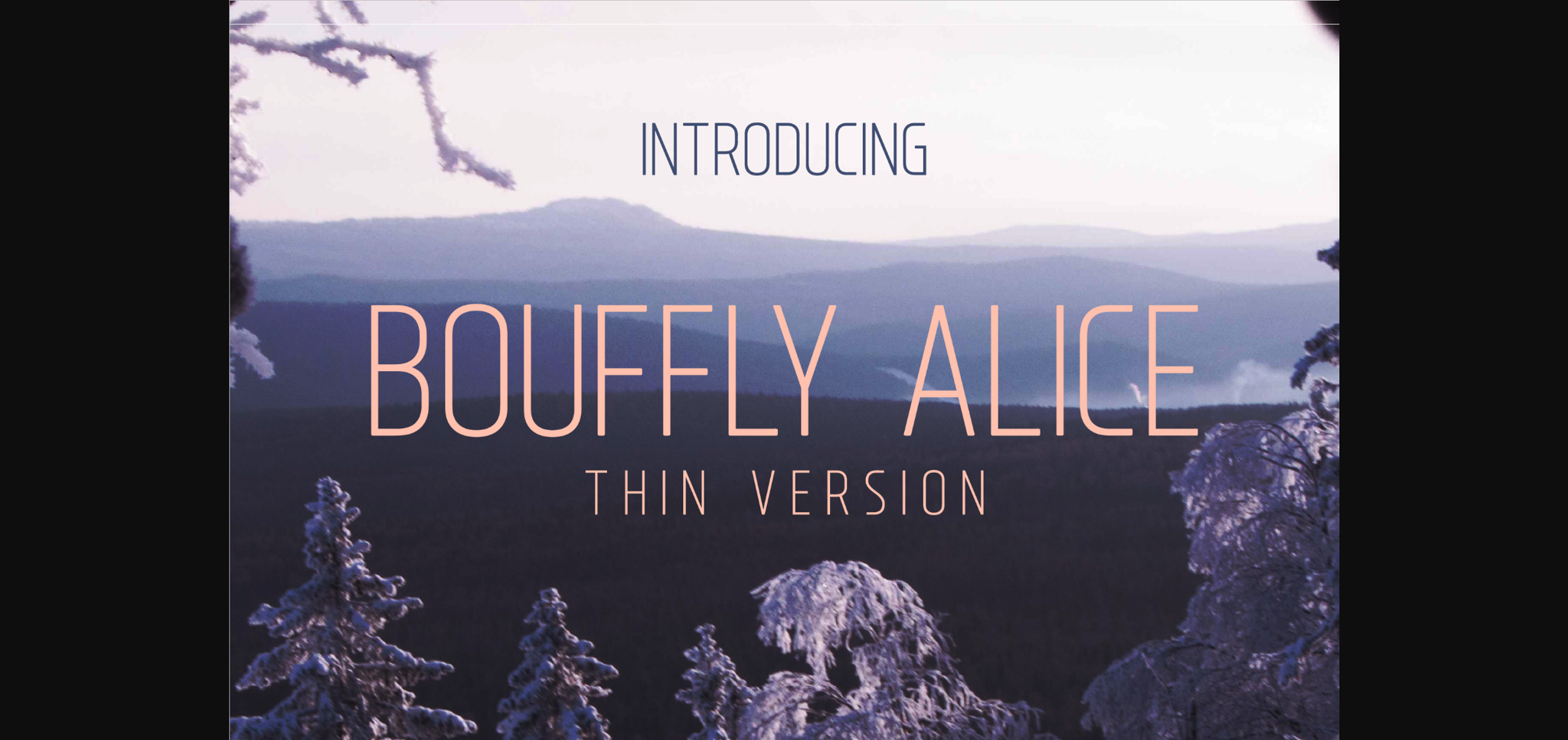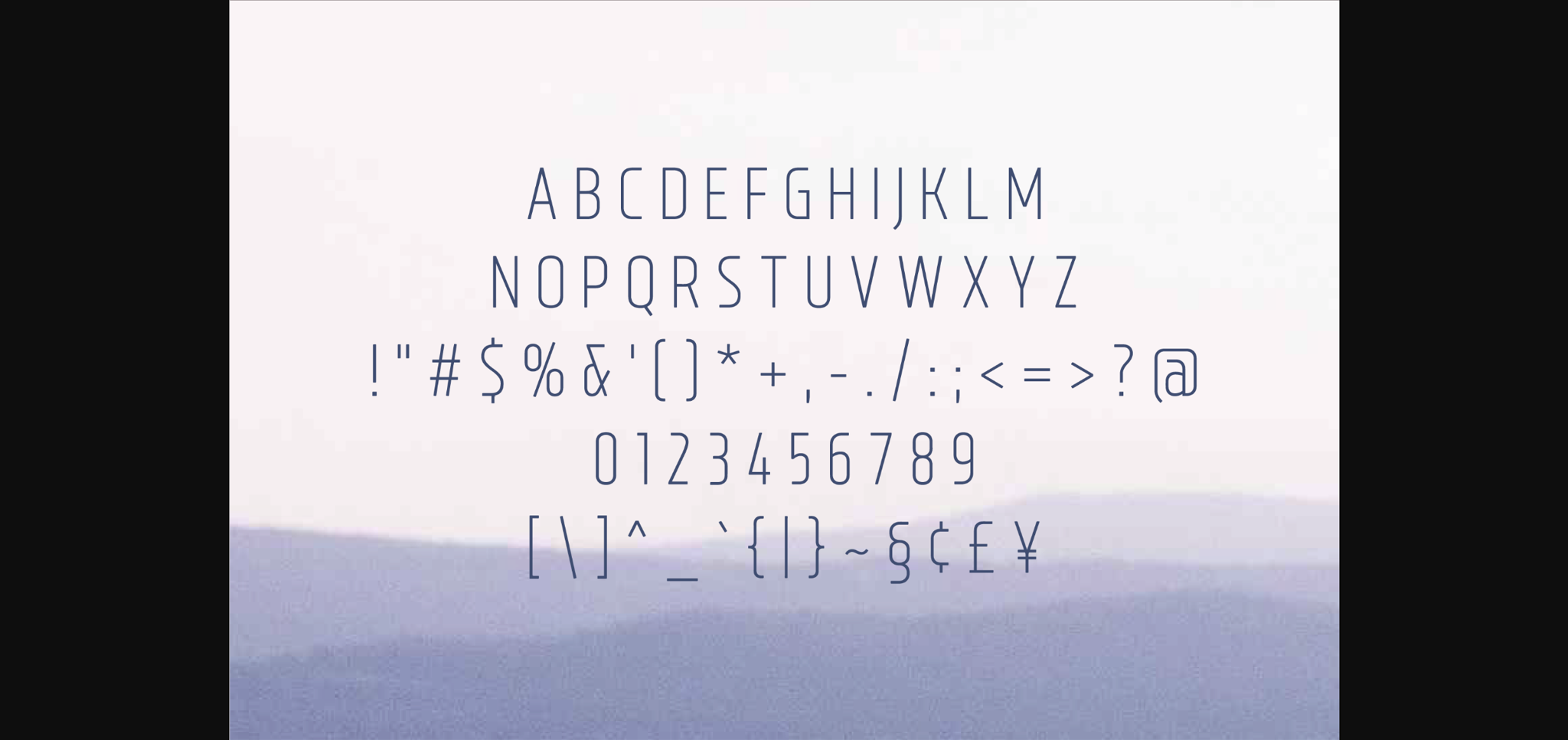
HomeSans Serif FontsBouffly Alice Thin Font Sans Serif Fonts Bouffly Alice Thin Font FacebookXPinterestWhatsApp 1 of 4 ... Bouffly Alice Thin Font Poster 2... Bouffly Alice Thin Font Poster 3... Bouffly Alice Thin Font Poster 4... About Bouffly Alice Thin Font Bouffly Alice Thin is a light and charming sans serif font with a timeless feel. Get inspired by its modern simplicity! DOWNLOAD NOW People also explored Phantom Font Biography Font Bolly Mokols Font Firebreak Font Hold Your Faith Font Continue Font Gridlocker Holywind Font The Longlight Font 365 0 TagsBouffly Alice Thin Font Previous articleBouffly Alice Extra Light FontNext articleBouffly Alice Light Font LEAVE A REPLY Cancel reply Comment: Please enter your comment! Name:* Please enter your name here Email:* You have entered an incorrect email address! Please enter your email address here Website: Save my name, email, and website in this browser for the next time I comment. Personal Use Free Remember Personal Use Free Read more about this font Carnivals Personal Use Free Read more about this font Kensin Personal Use Free Read more about this font Pan Pizza Personal Use Free Read more about this font BLOG How to Install and Use Fonts on Windows, macOS, and Web Projects How to Install and Use Fonts on Windows, macOS, and Web Projects Fonts are a crucial part of design and branding. Whether you’re designing a... The 10 Best Handwriting Fonts to Add Personality to Your Designs Exploring Font Trends Free Fonts Risk: Why Free Fonts Can Be Dangerous for Designers